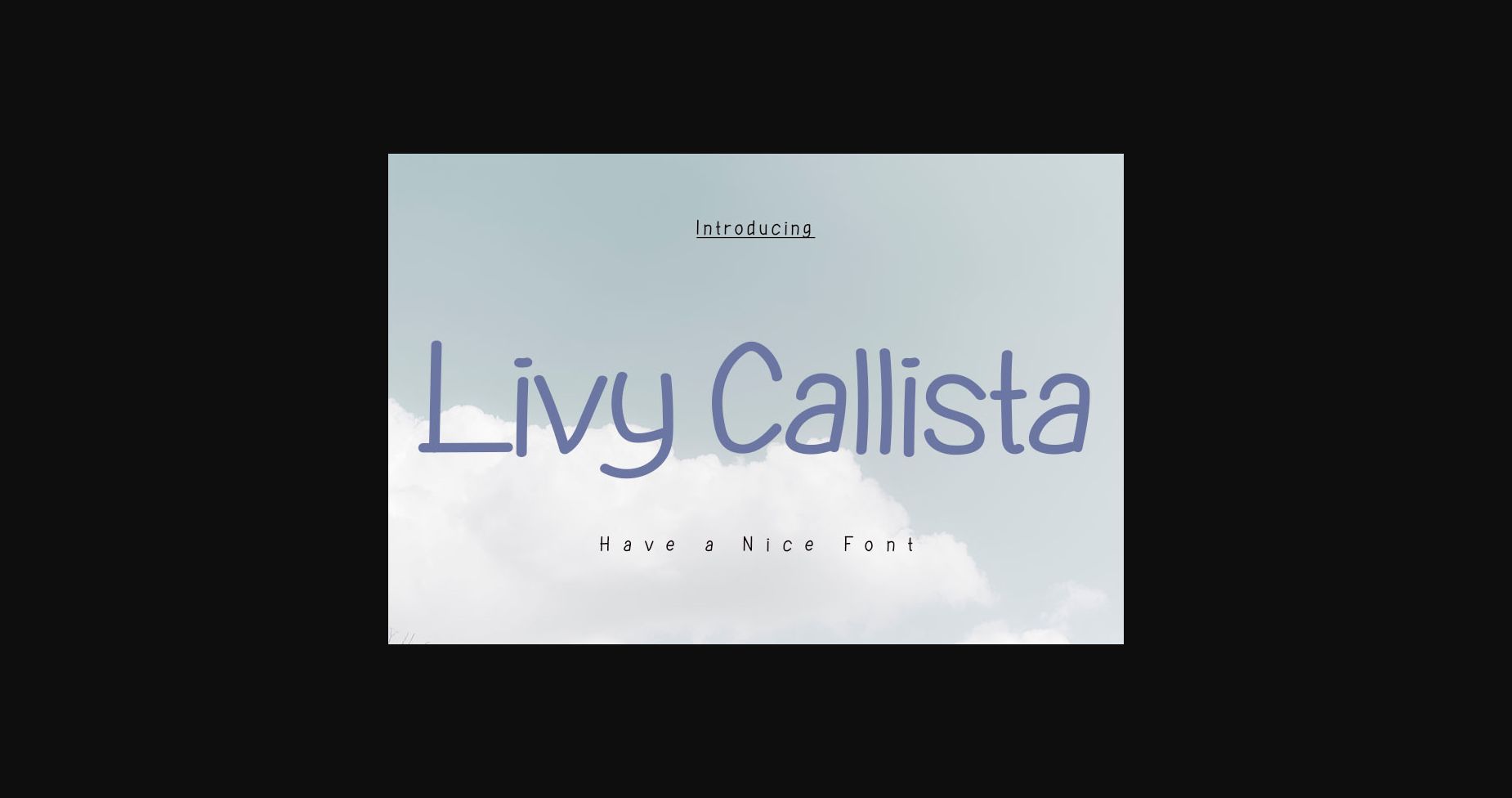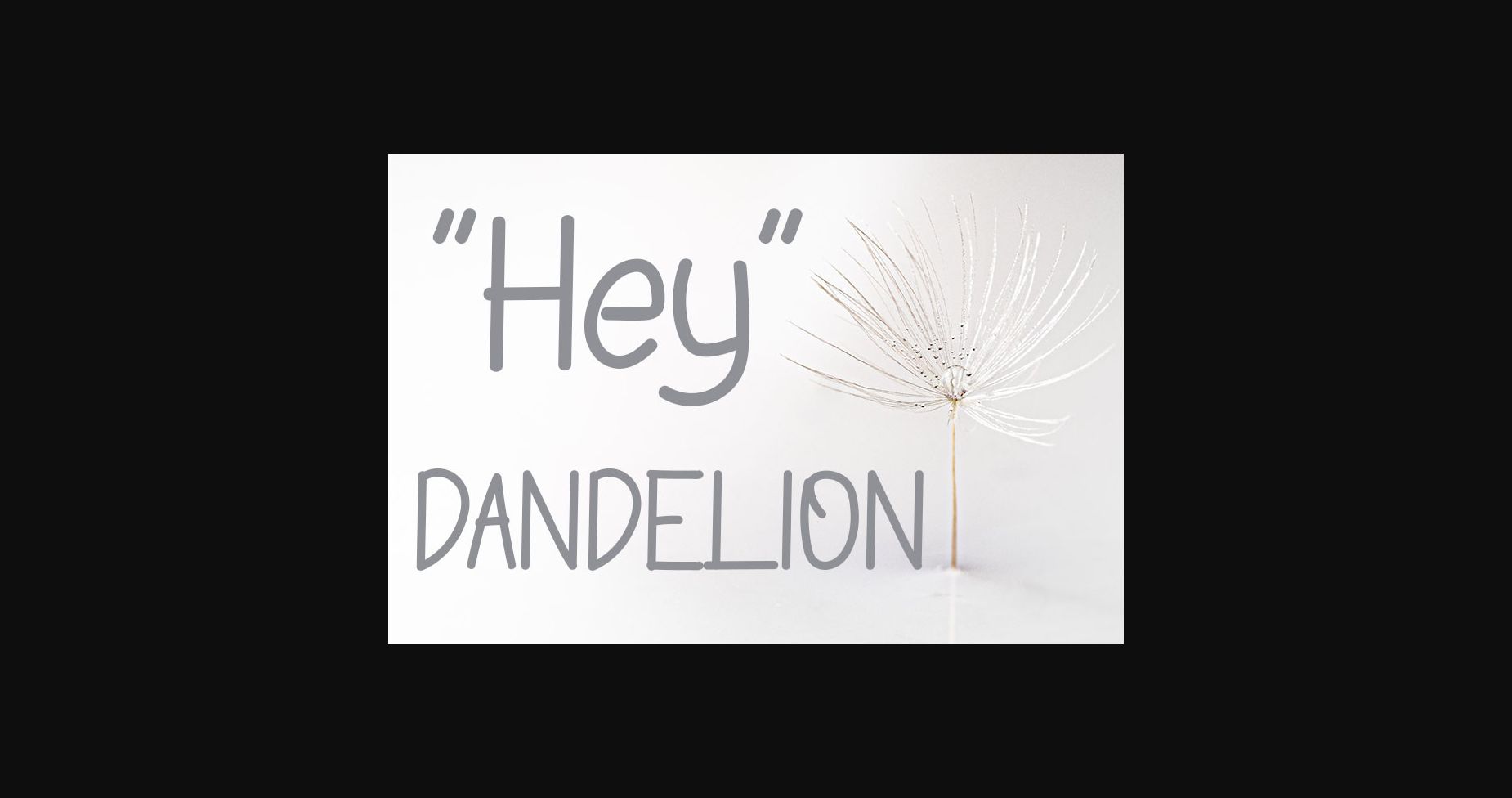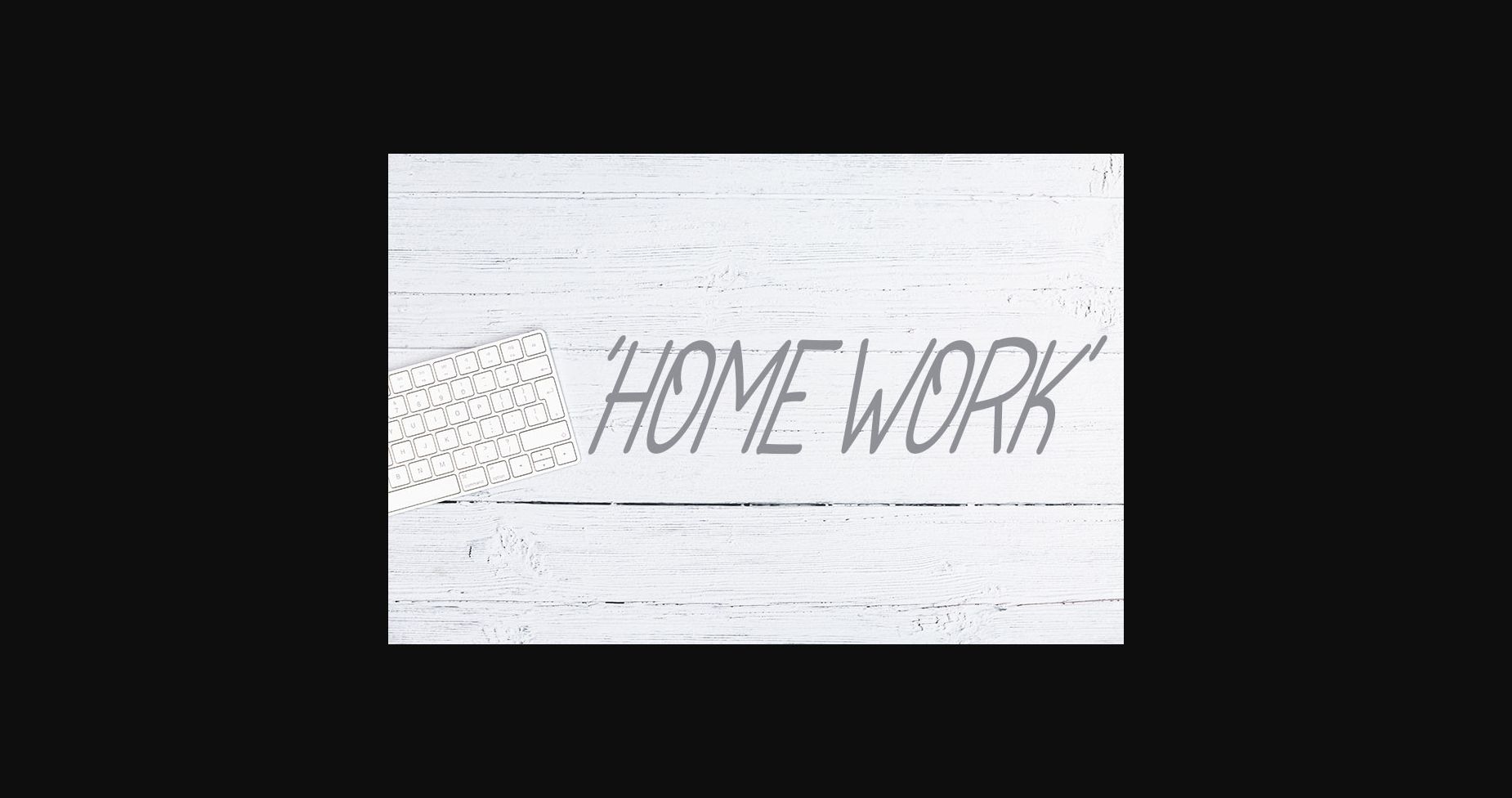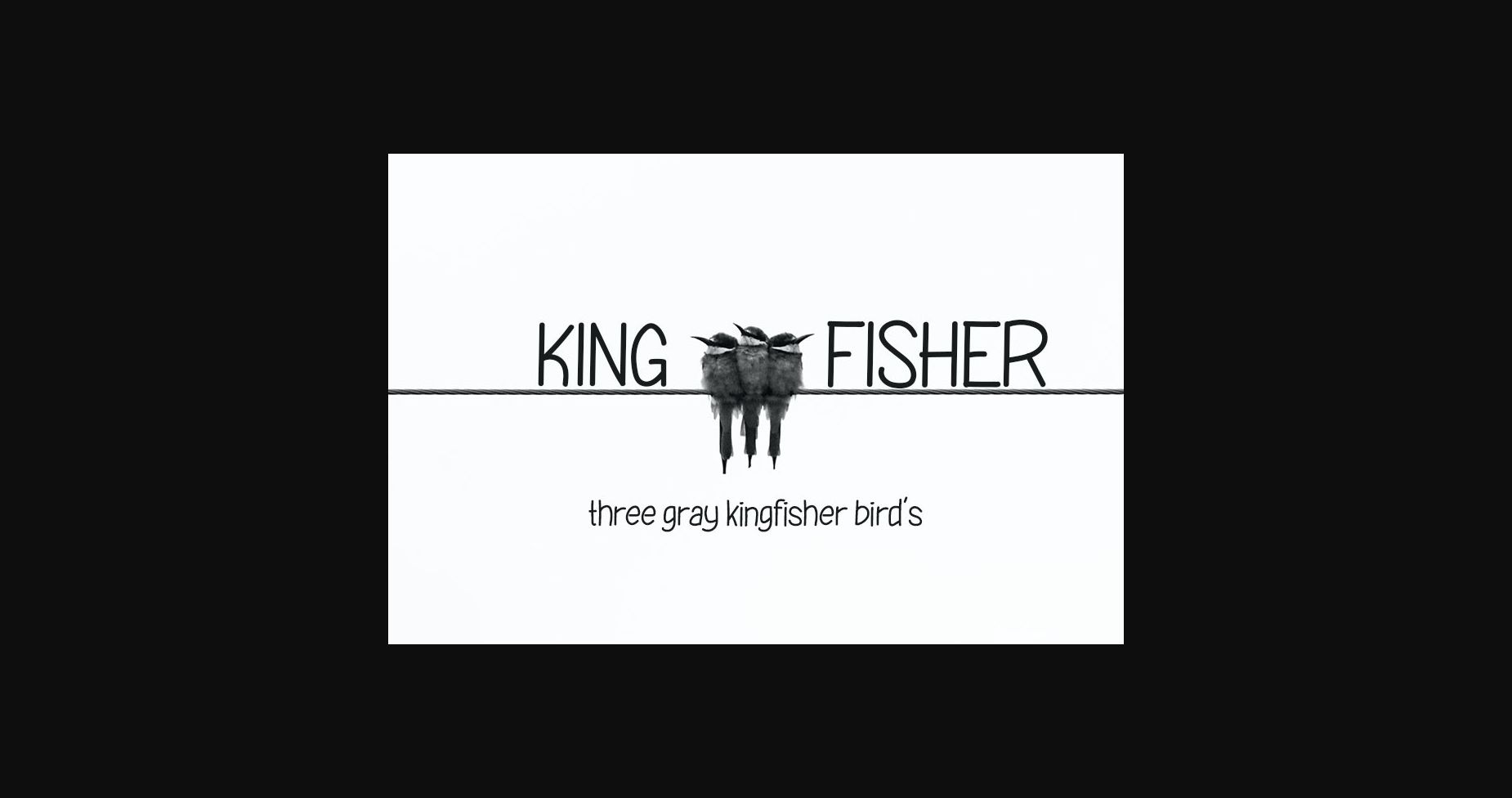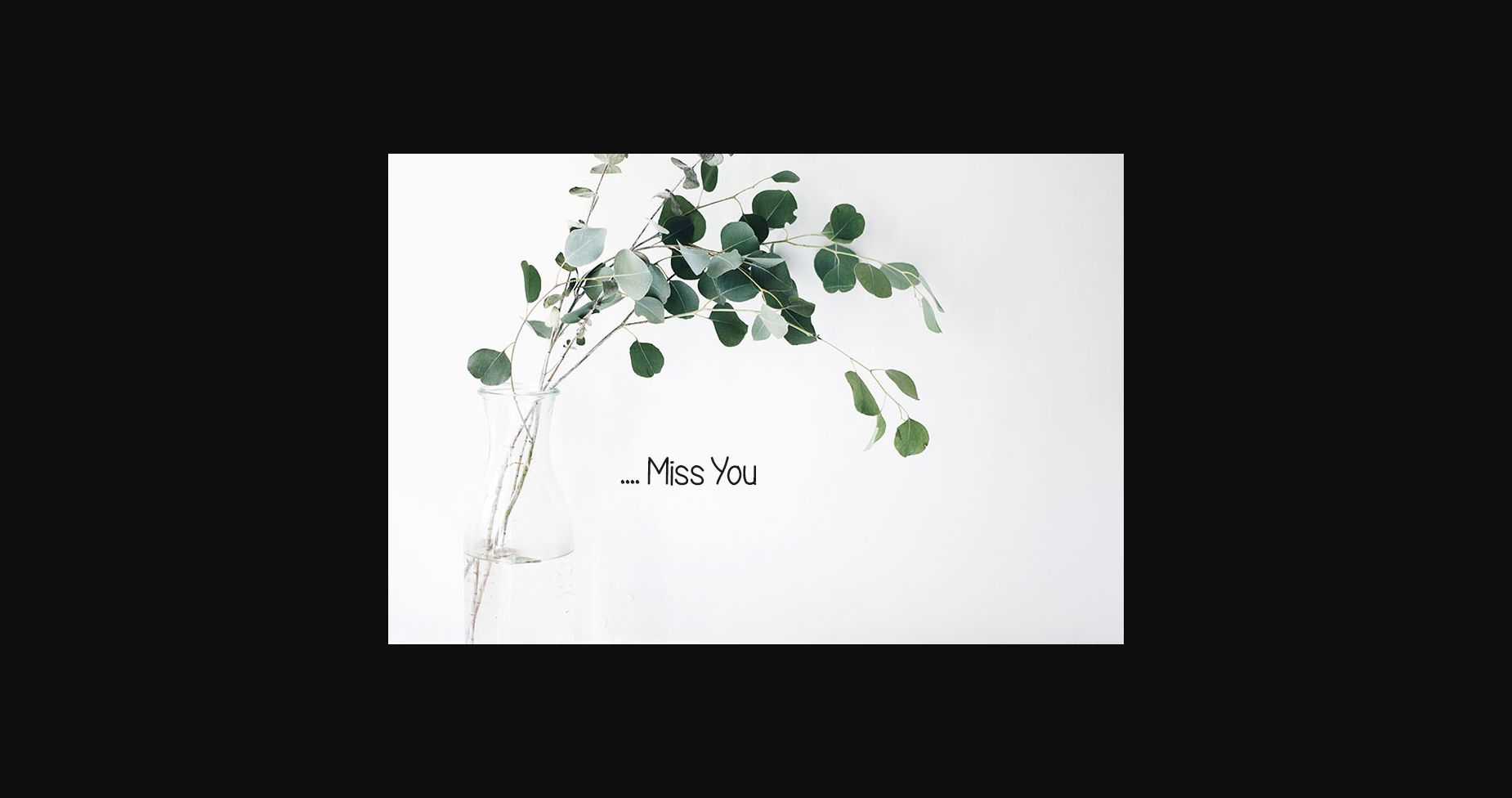
Livy Callista Font
About Livy Callista Font
Livy Callista is a delicate and charming sans serif font. Easily readable and solemn, this typeface is incredibly versatile, fitting a wide range of projects and designs. From book titles to marketing materials, this font is here to impress!